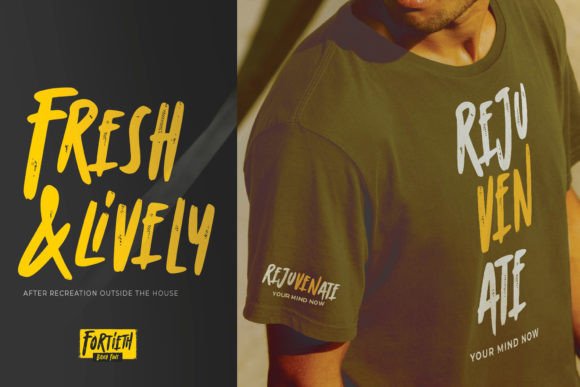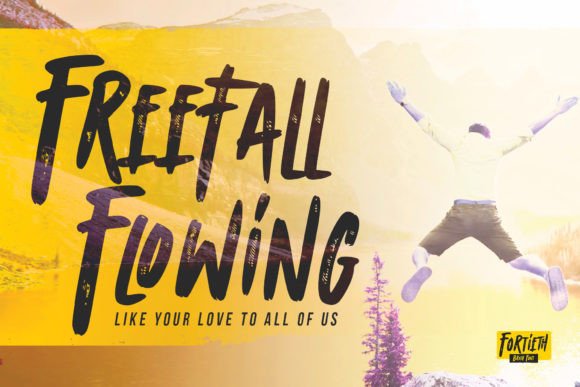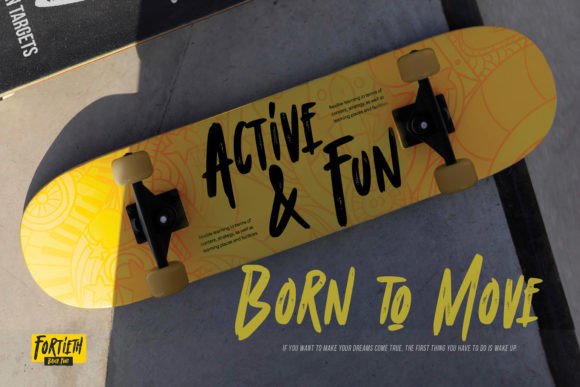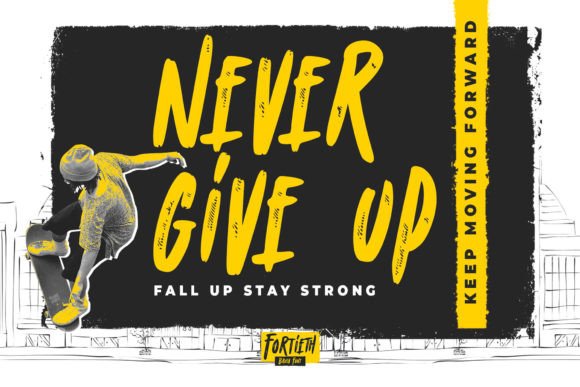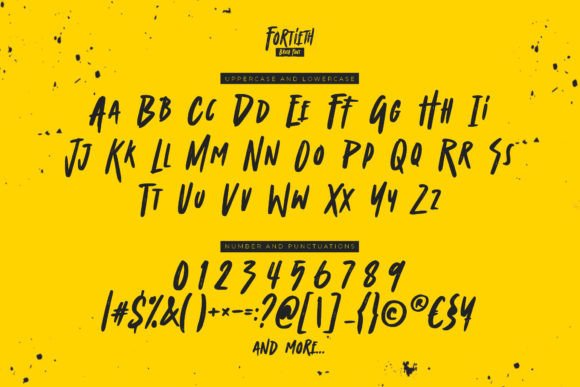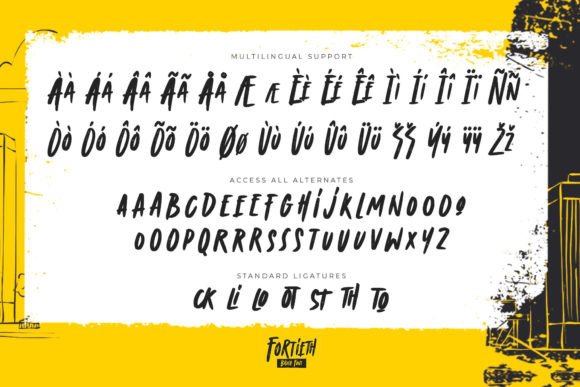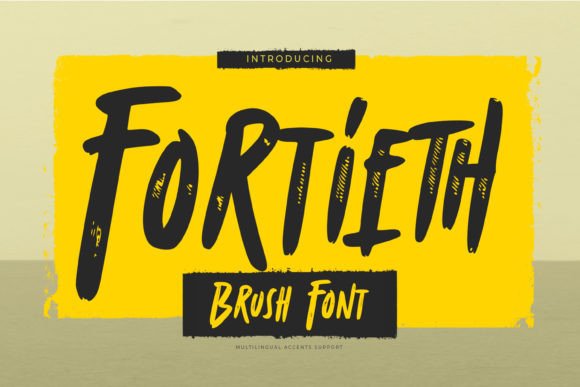
Introducing Fortieth Font: A Timeless Handwritten Masterpiece
In the world of typography, a good font can make all the difference in creating a lasting impression. For designers and crafters, finding the perfect font that combines elegance, uniqueness, and readability can be a daunting task. However, look no further than Fortieth Font, a lovely and timeless handwritten font that is sure to elevate your designs to the next level.
The Charm of Fortieth Font
Fortieth Font is a beautiful, handcrafted font that exudes a sense of warmth and sophistication. Its unique and beautiful touch can be seen in every letter, making it an excellent choice for creating eye-catching logos, branding, and quotes. The font’s timeless quality ensures that it will remain relevant and stylish for years to come, making it a valuable addition to any designer’s toolkit.
What Makes Fortieth Font Special?
So, what sets Fortieth Font apart from other fonts? Here are a few key features that make it a standout:
- Unique Letterforms: Each letter in Fortieth Font has a distinct and beautiful touch, ensuring that your designs will have a one-of-a-kind look.
- Handwritten Charm: The font’s handwritten quality gives it a warm, personal feel that is perfect for creating logos, branding, and other designs that require a touch of elegance.
- Timeless Appeal: Fortieth Font’s classic design ensures that it will remain stylish and relevant for years to come, making it a great investment for designers and crafters.
- Ease of Use: The font is easy to read and use, making it perfect for a wide range of design applications, from logos and branding to quotes and social media graphics.
Fortieth Font is an excellent choice for designers and crafters who want to add a touch of elegance and sophistication to their work. Here are a few ways you can use this beautiful font:
- Logo Design: Create eye-catching logos that will help your clients stand out from the competition.
- Branding: Use Fortieth Font to create consistent branding across all your marketing materials, from business cards to website headers.
- Quote Design: Create inspiring and stylish quotes that will engage your audience and add a touch of elegance to your social media feeds.
- Stationery and Invitations: Use Fortieth Font to create beautiful stationery, invitations, and other paper goods that will make a lasting impression.
Tips for Using Fortieth Font
Here are a few tips for getting the most out of Fortieth Font:
- Experiment with Colors: Try pairing Fortieth Font with different colors to create unique and eye-catching designs.
- Play with Sizes: Experiment with different font sizes to create visual interest and hierarchy in your designs.
- Add Texture and Patterns: Add texture and patterns to your designs to give them an extra layer of depth and interest.
In conclusion, Fortieth Font is a beautiful and timeless handwritten font that is perfect for designers and crafters who want to add a touch of elegance and sophistication to their work. With its unique letterforms, handwritten charm, and timeless appeal, Fortieth Font is sure to become a valuable addition to your design toolkit. So why wait? Download Fortieth Font today and start creating stunning designs that will leave a lasting impression!